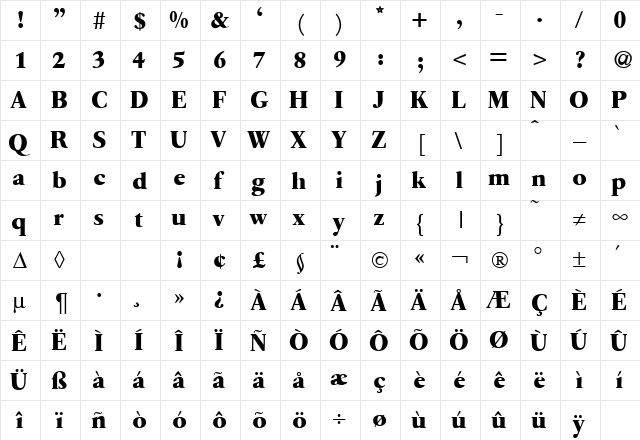
Quarto Bold
Design Context for Quarto Typeface
Quarto offers clean, dependable letterforms without strong stylistic allegiance, making it a practical choice for designers who need flexibility. The heavy weight commands attention and anchors typographic hierarchies.
Pro Tip: Use Quarto in both headline and body roles to test its range before committing to a single application.